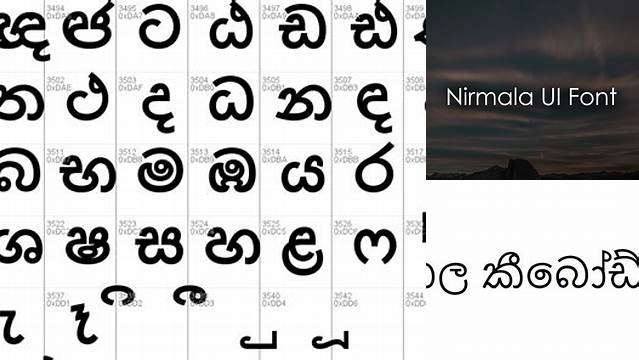
What is Nirmala UI Sinhala Font?
So, what exactly is the Nirmala UI Sinhala font? Well, it's a variant of the Nirmala UI font family, specifically designed to support the Sinhala script. For those unfamiliar, Sinhala is the language spoken by a large community in Sri Lanka. The beauty of Nirmala UI lies in its clean, modern design. It's a sans-serif font, which means it doesn't have those little strokes (serifs) at the end of the letters. This makes it super readable on screens and in print, which is why it's a go-to choice for everything from websites and apps to documents and presentations. Because of its versatility, it is used globally. The font is not only useful for Sinhala text but can also be used with English and other languages, making it a great choice for multilingual projects. One of the key features of the Nirmala UI Sinhala font is its excellent readability. The font is designed to be clear and easy to read, even at smaller sizes, which is crucial for user interface design. This makes it a great choice for digital interfaces where text needs to be easily scannable. Furthermore, the font is often available in various weights and styles, such as regular, bold, and italic, allowing for a wide range of design possibilities. This flexibility lets you emphasize important text or create visual hierarchy within your designs. This is not just a font; it's a tool that makes communication easier and more effective. The Nirmala UI Sinhala font is designed with the goal of providing a pleasant reading experience. This is achieved by paying attention to the details of each character, ensuring they are well-proportioned and visually appealing. The font also includes support for a wide range of Sinhala characters, including vowels, consonants, and special symbols, ensuring that all Sinhala content can be displayed correctly. This comprehensive character set is critical for supporting the language fully and making sure that every letter and word is correctly represented. This level of detail and consideration makes Nirmala UI Sinhala a popular choice for both professional designers and casual users who need a reliable, easy-to-use font. The choice of this font over other fonts is important to showcase clarity. The font can be used in various design projects. When you use it, your projects will look stunning.
Key Features of Nirmala UI Sinhala
Let's break down some of the cool features that make Nirmala UI Sinhala stand out. First off, the readability is top-notch. Its clean design means text is easy on the eyes, whether you're reading it on a screen or in print. Secondly, it supports the Sinhala script perfectly, ensuring all characters are displayed correctly. This is a big deal for anyone creating content in Sinhala. Then, there's the versatility. The font often comes in different weights and styles (like regular, bold, and italic), giving you plenty of design options. You can emphasize important text or create visual interest with these variations. Furthermore, Nirmala UI is designed with user interfaces in mind. It's great for websites, apps, and other digital platforms where clear, concise text is essential. Also, it is often free to download and use, making it accessible to a wide audience, including both professional designers and casual users. The font's overall design makes it suitable for various applications. All the features makes the Nirmala UI Sinhala font a favorite among designers. It is very flexible in how it can be used.